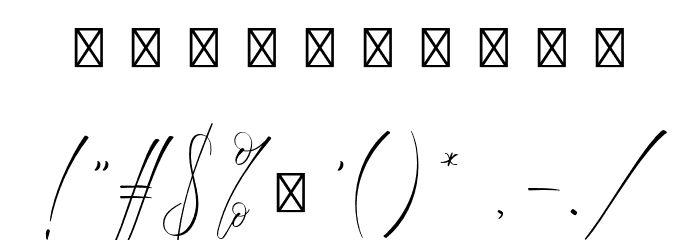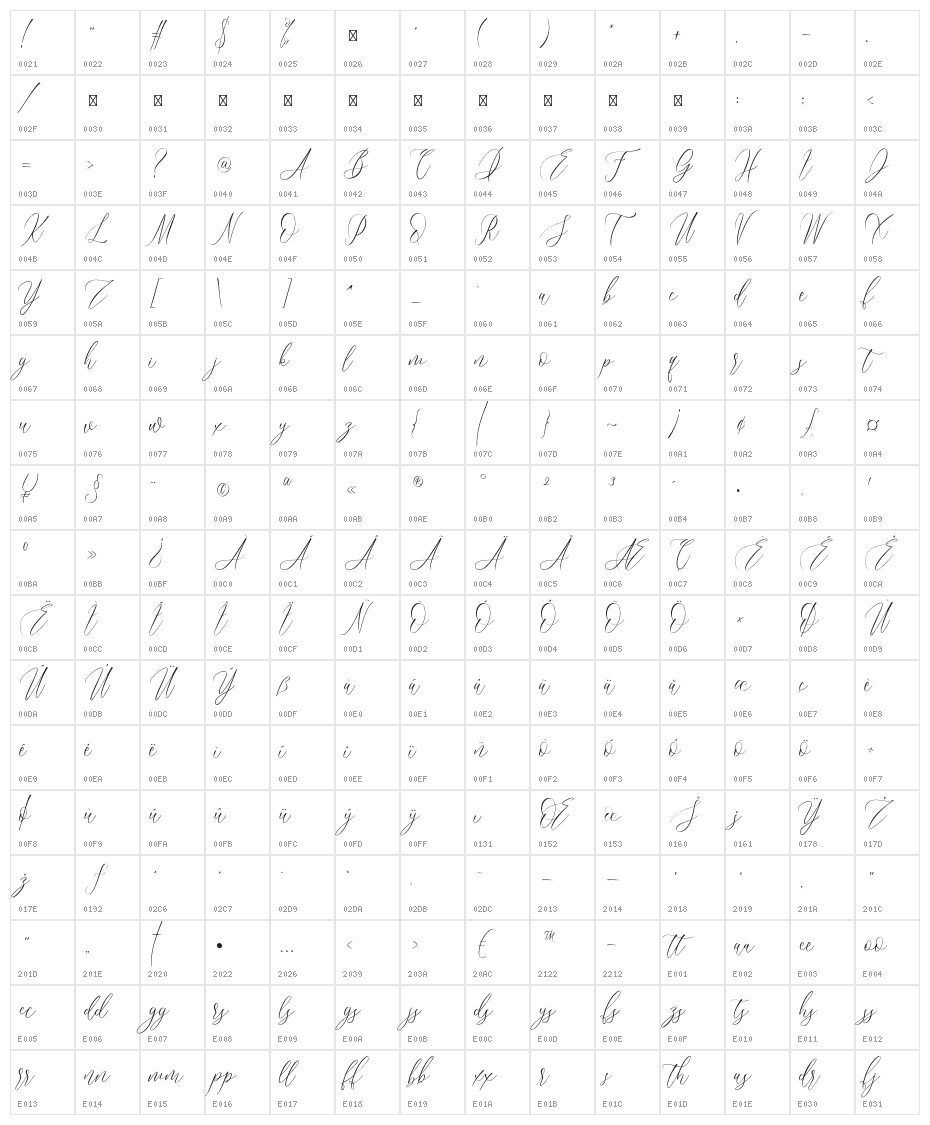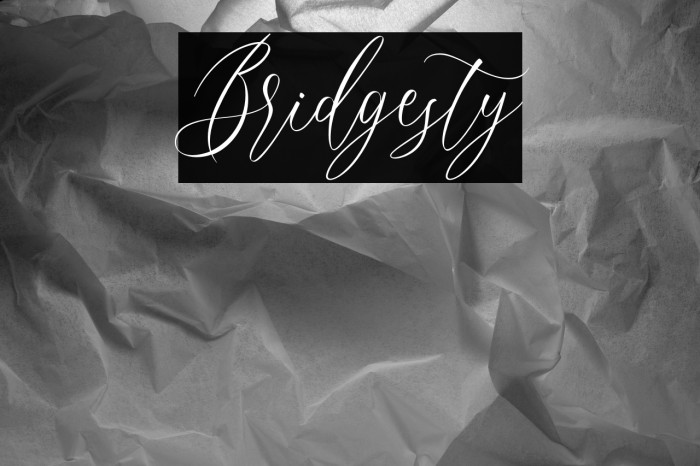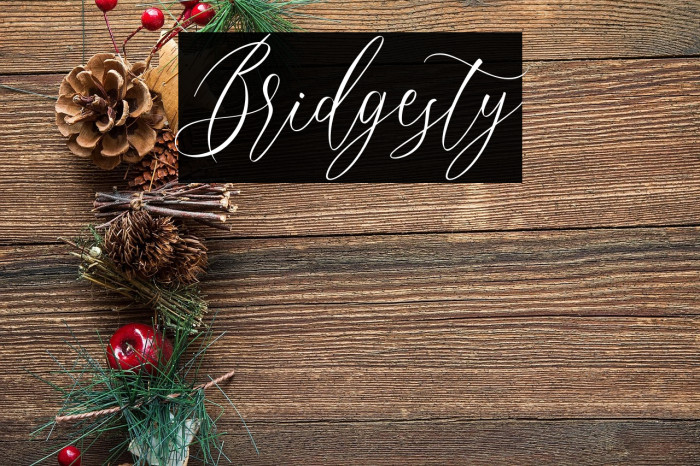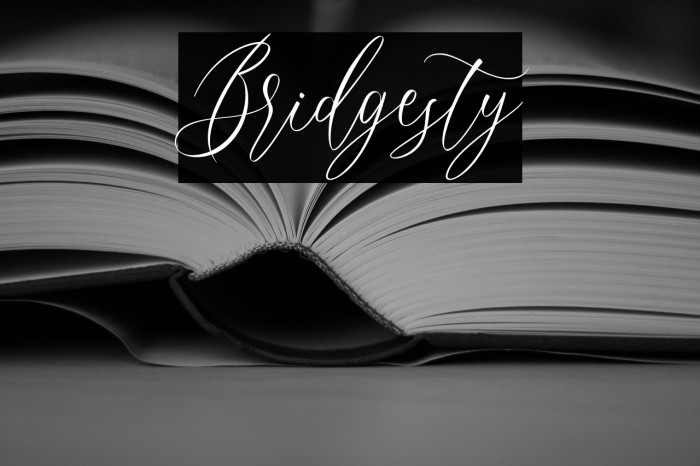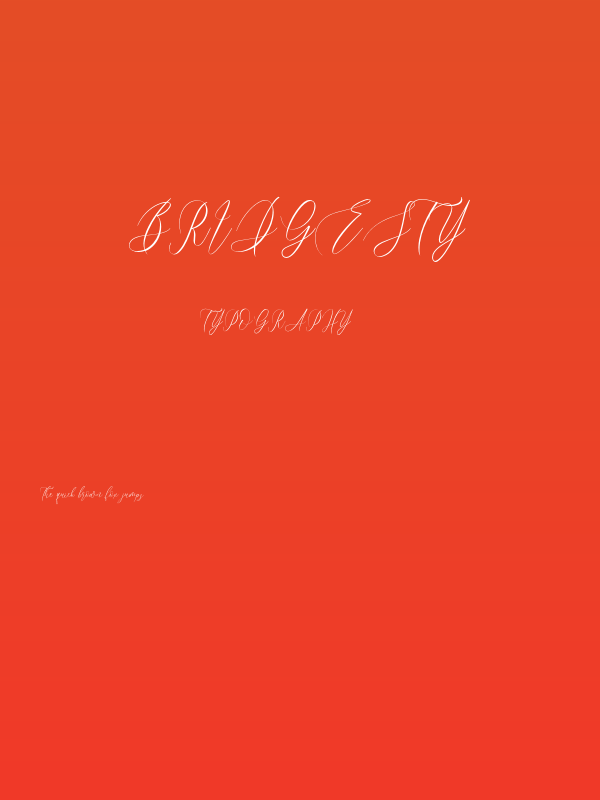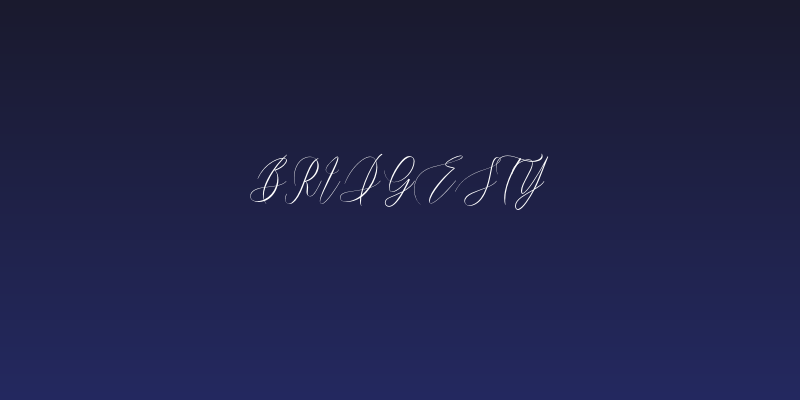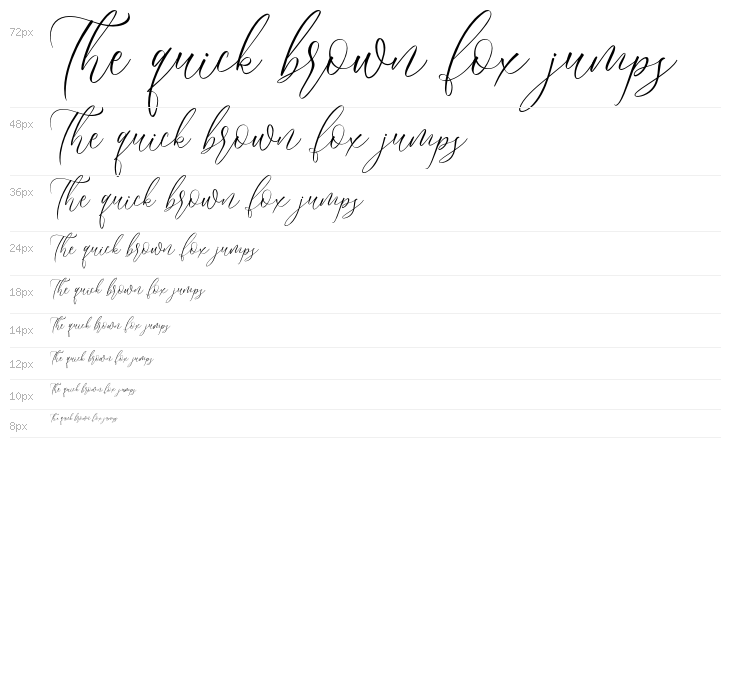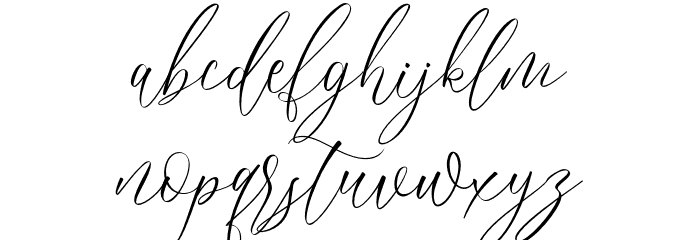
Bridgesty Font
Bridgesty Description
This elegant script font features flowing, interconnected letters with a calligraphic style. The uppercase characters are ornate and sweeping, while the lowercase letters maintain a graceful, fluid form. The strokes are thin and delicate, creating a sophisticated and refined appearance. The font's design is reminiscent of traditional handwriting, with a modern twist that adds a touch of elegance and charm. It is ideal for projects that require a personal, artistic touch, such as invitations, greeting cards, and branding materials. The special characters maintain the same fluidity and style, ensuring a cohesive look across all text elements.
Overall StyleElegant
Use CaseLogos, Invitations, Artistic projects
Proposed ProjectsIdeal for wedding invitations, elegant branding, greeting cards, and artistic projects.